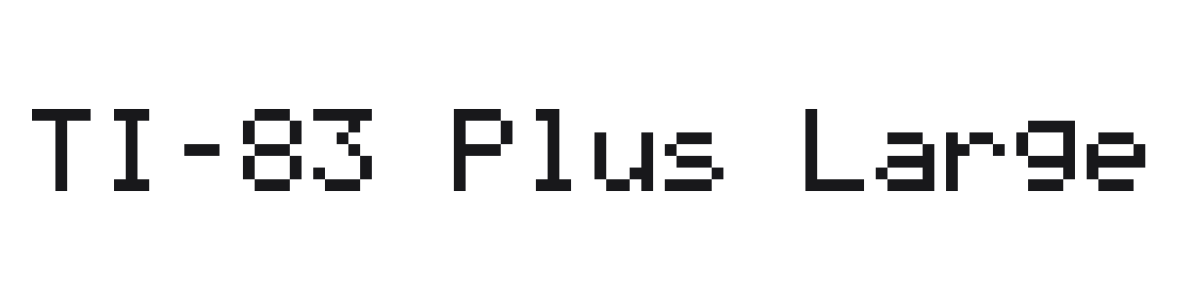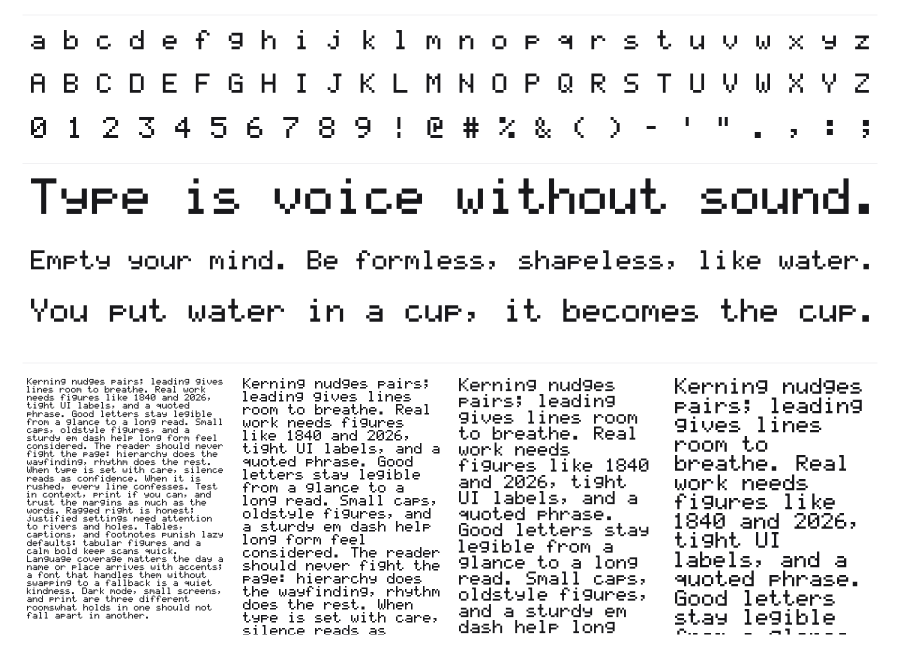
TI-83 Plus Large
TI-83 Plus Large is an exact pixel-for-pixel replica of the large system font from the TI-83 Plus and TI-84 Plus graphing calculators. Each character is drawn on a strict 5x7 grid, faithfully reproducing the chunky bitmap aesthetic millions of students stared at in math class. Instantly recognizable to anyone who grew up with a graphing calculator in their backpack.